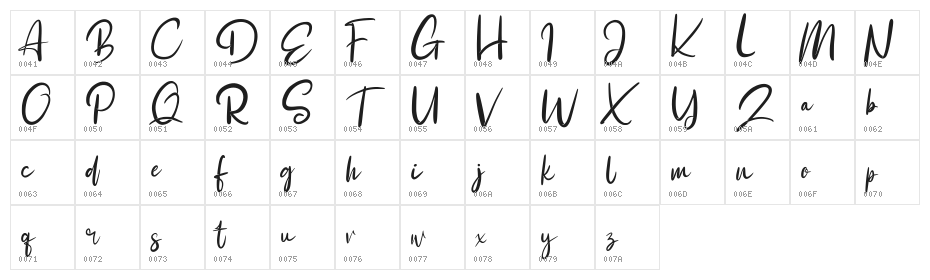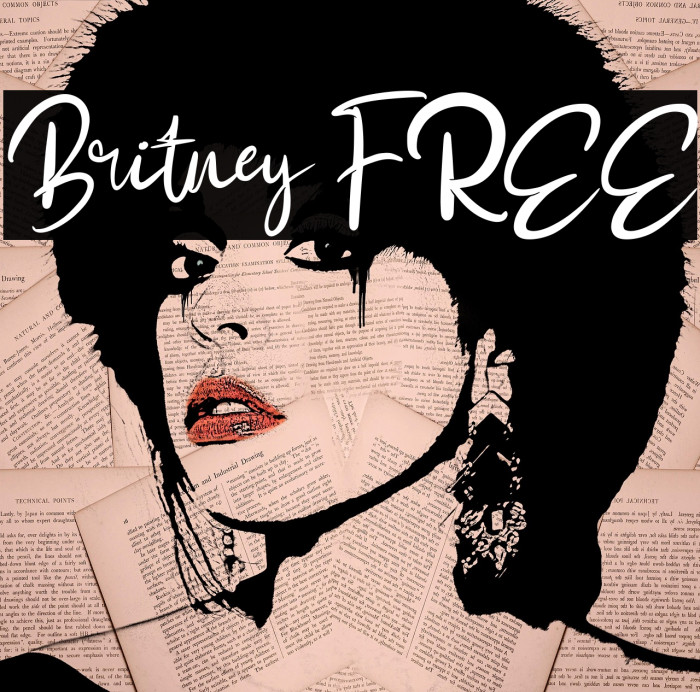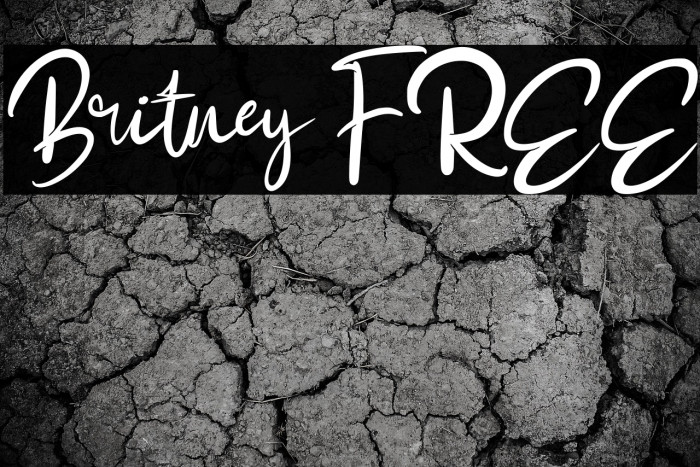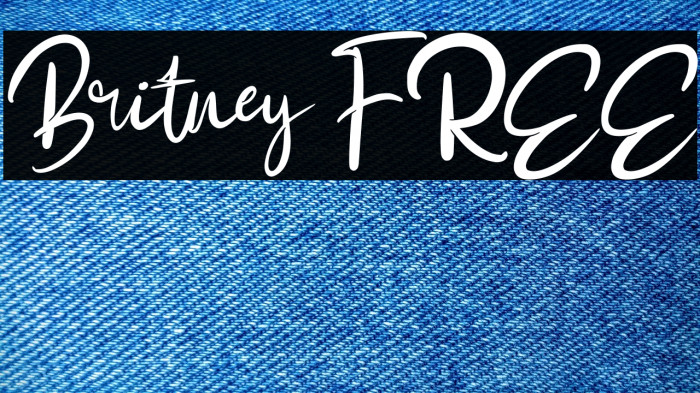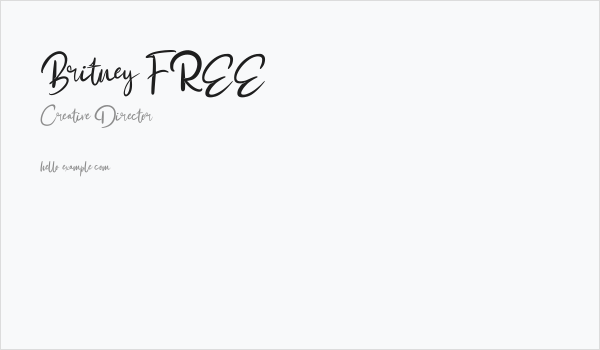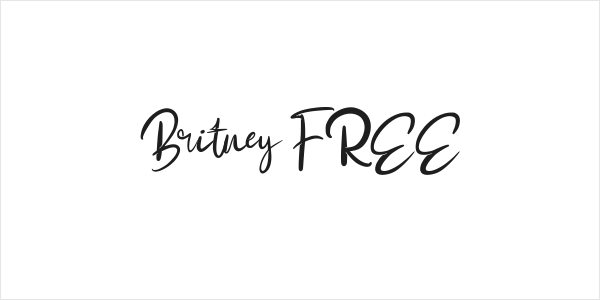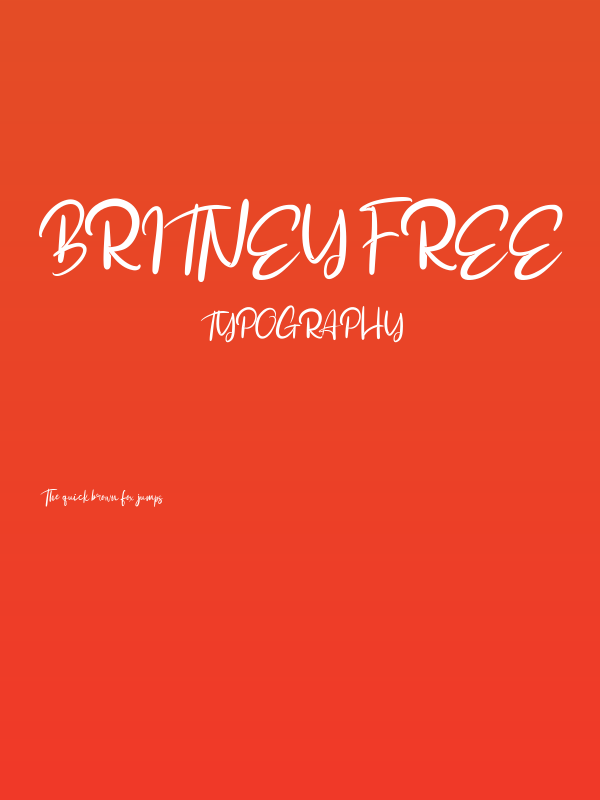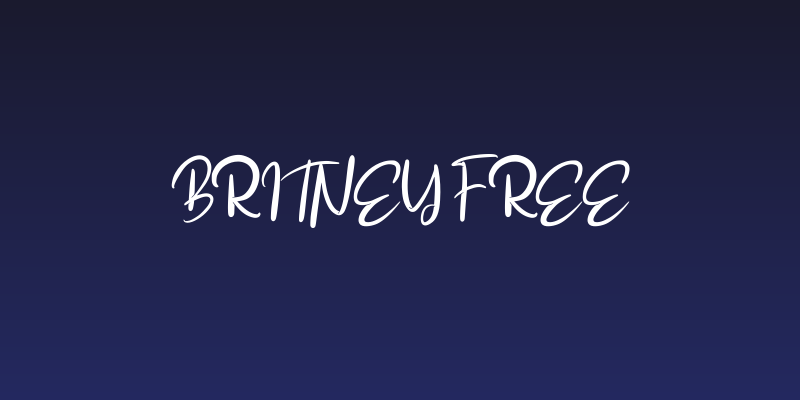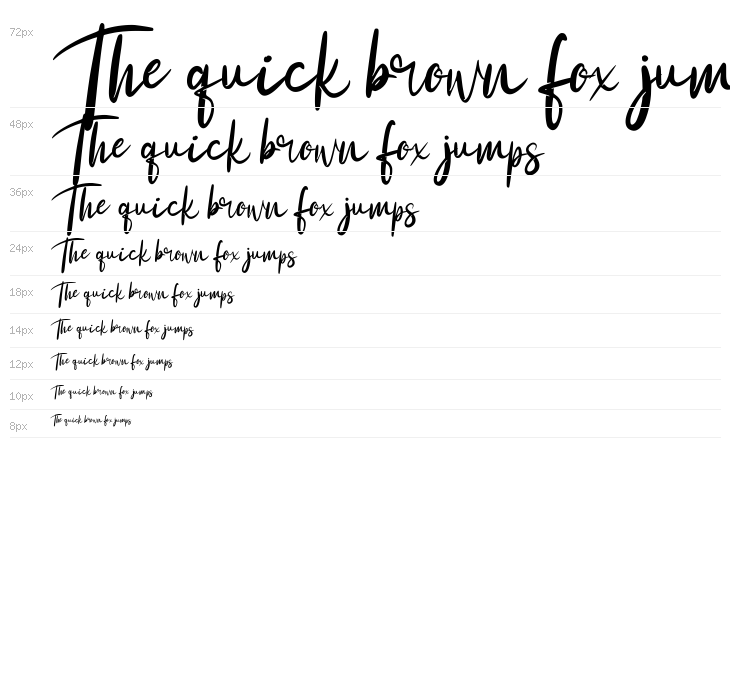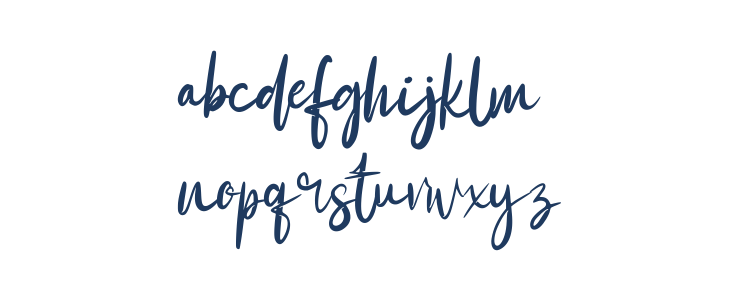
Britney FREE Font
Britney FREE Description
This font features a lively and expressive script style, characterized by its flowing, cursive letters that mimic natural handwriting. The uppercase letters are bold and slightly elongated, while the lowercase letters maintain a consistent rhythm with elegant loops and swashes. The overall appearance is both playful and sophisticated, making it suitable for a variety of creative applications. The font maintains a consistent stroke width, providing a harmonious and balanced look. Its dynamic nature is perfect for adding a personal touch to any design.
| Proposed Projects | Ideal for wedding invitations, greeting cards, branding, and social media graphics. |